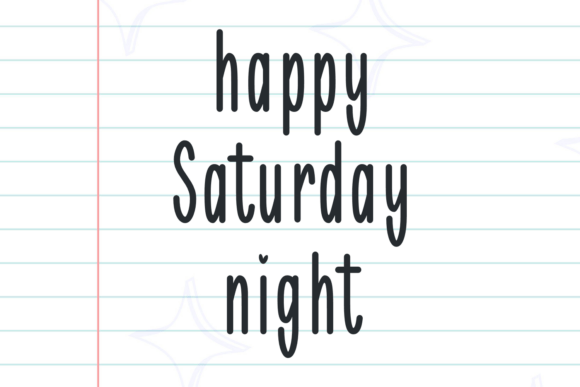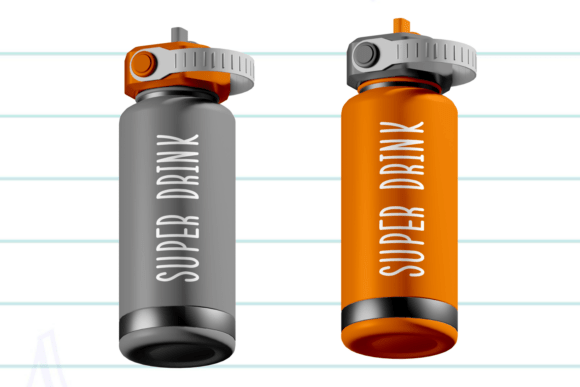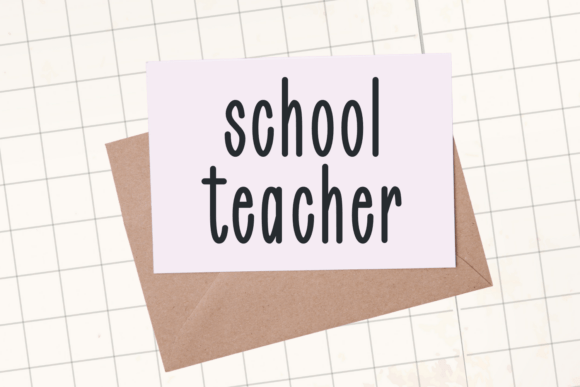
Bestie Moment Font
Discover the unique charm of the Bestie Moment font. This handwritten font style exudes trendiness and modern elegance which makes it perfect for designing logos, social media posts, product labels and even fashion-related content. Its romantic and feminine appeal often lands it in the world of wedding invitations, love quotes and Valentine’s cards. Its stylish fashions align it with making beautiful sublimation prints and bold headlines, while also lending it effortlessly as a popular choice for crafts, wallpapers, and decorative pieces.